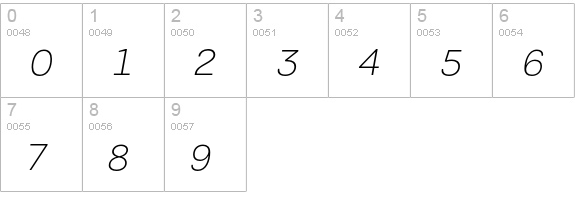
PFEncoreSansPro-ThinItalic is a modern and elegant font that exudes sophistication and style. With its thin and italic design, this font is perfect for creating a sleek and contemporary look in your projects. Whether you are designing a website, creating a logo, or working on a branding project, PFEncoreSansPro-ThinItalic is sure to make a statement. The font features clean lines and a subtle slant that adds a touch of flair to your text. Its thin weight ensures a delicate and refined appearance, making it ideal for conveying a sense of elegance and sophistication. Whether used for headlines, titles, or body text, PFEncoreSansPro-ThinItalic is versatile and can be easily integrated into various design projects. The best part about PFEncoreSansPro-ThinItalic is that it is available for free download at FontsMarket.com. This means that you can access this stylish font without any cost, making it a valuable addition to your font library. Don't miss out on the opportunity to enhance your designs with this sleek and modern typeface. Download PFEncoreSansPro-ThinItalic today and elevate your projects to the next level.